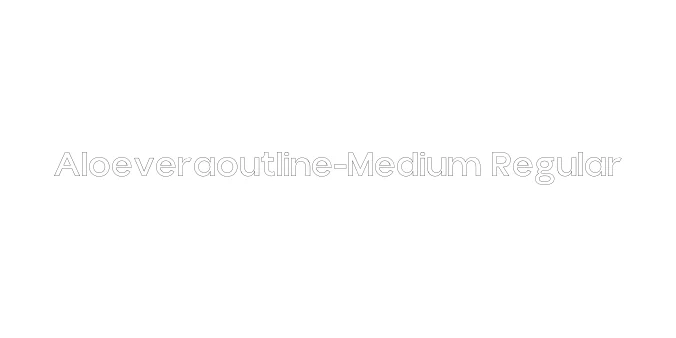
Aloeveraoutline-Medium Regular
Designed by Allertype
| Category | Display / Sans-Serif Outline |
| Designer | Allertype |
Aloeveraoutline-Medium Regular is a contemporary display typeface characterized by its clean, geometric linework and sophisticated hollow-core aesthetic. Designed to offer a minimalist yet impactful look, this font excels in modern design environments where visual clarity and stylistic elegance are paramount. Its outline variant provides a lightweight visual footprint while maintaining a strong architectural presence, making it a favorite for designers seeking a professional and trendy edge in their layouts.
Technical precision is at the heart of Aloeveraoutline-Medium Regular, ensuring that the strokes remain consistent and sharp across various scales, from small digital icons to massive billboard prints. It is particularly effective when layered over vibrant imagery or used in high-contrast monochromatic schemes. Whether applied to digital interfaces, editorial spreads, or premium merchandise, this font offers a versatile solution for high-impact visual communication and refined typographic hierarchy.
Aloeveraoutline-Medium Regular Best Uses
Excellent for creating modern logos, brand identities, and high-end corporate stationery.
Perfect for large-scale typography that needs to stand out without feeling visually heavy.
Ideal for stylish Instagram quotes, eye-catching thumbnails, and digital marketing graphics.
Well-suited for magazine covers, editorial titles, and web headers to add a sophisticated touch.